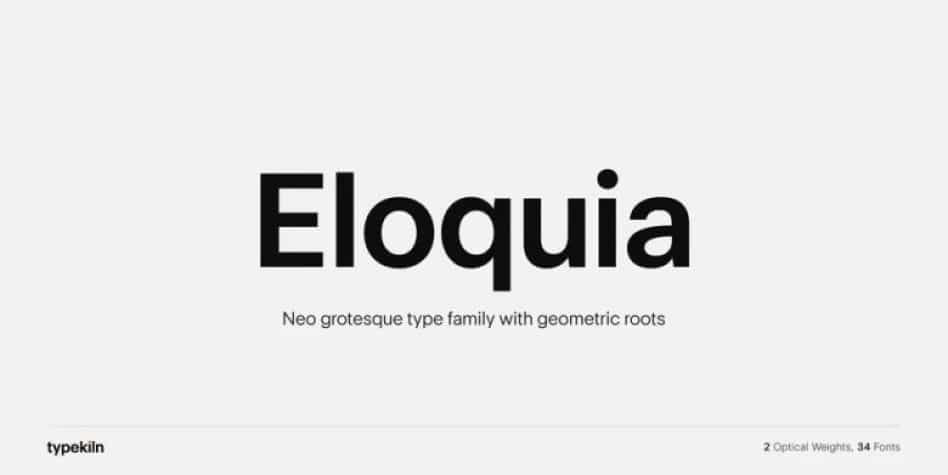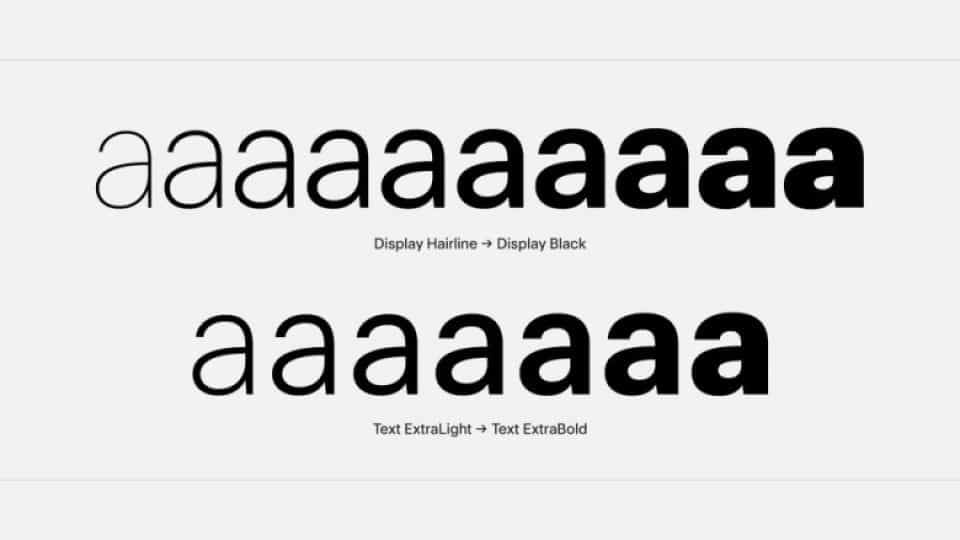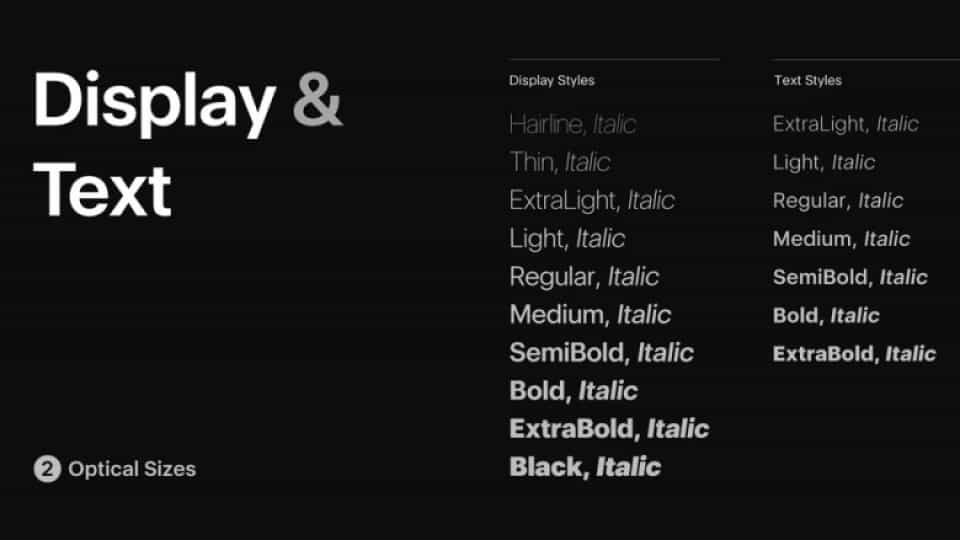
Eloquia Font is a contemporary design based on neo-grotesque principles and has geometric roots. Even though the majority of the typeface is rather neutral it has a geometric design that provides it with a certain warmth and character. Eloquia is available in two different scales: Text and Display; the Display styles are designed for headlines and are smaller than the Text styles,